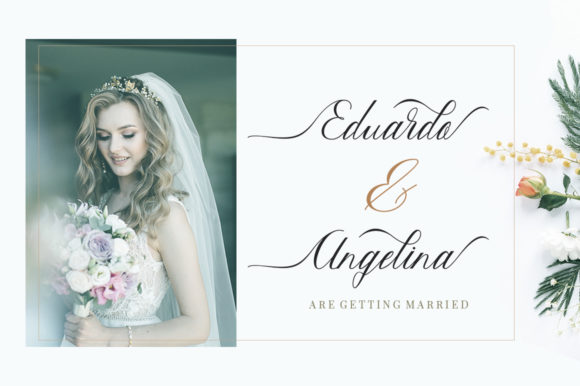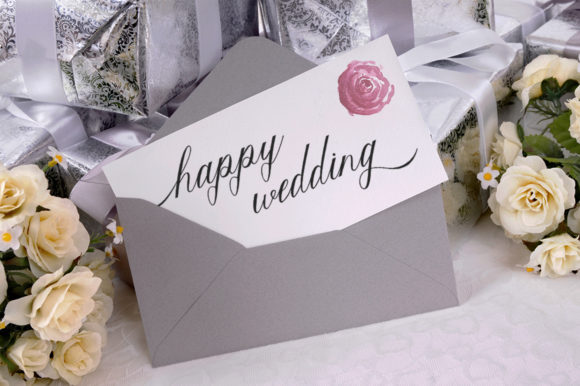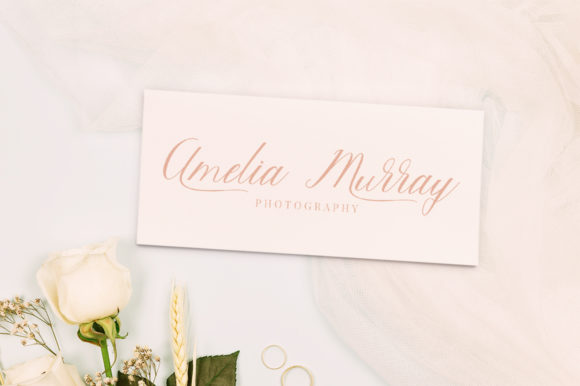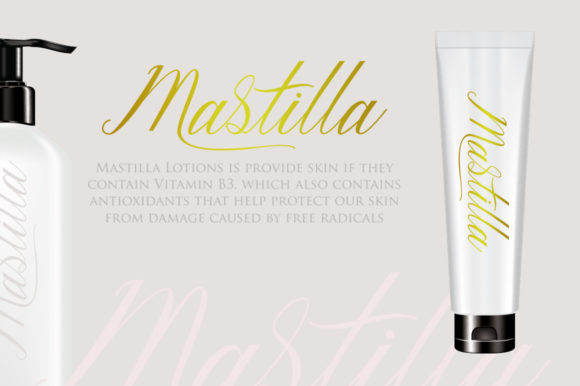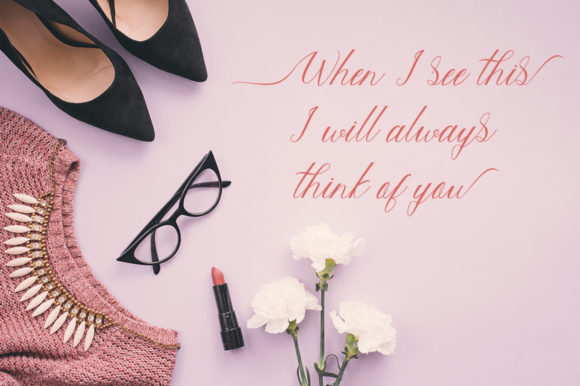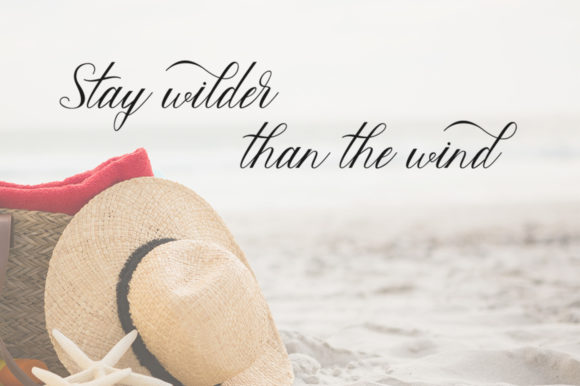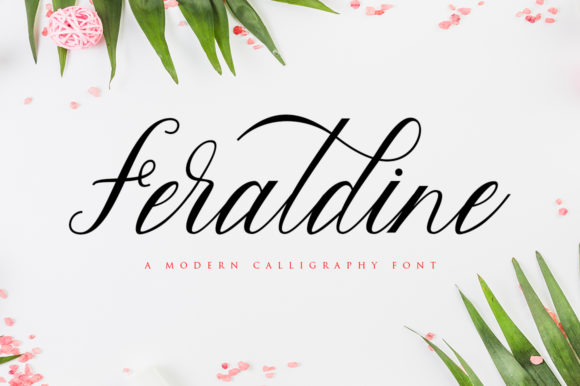
Feraldine Font: The Perfect Cute Calligraphy Font for Creative Projects
Are you a designer or crafter looking for a font that can add a touch of elegance and whimsy to your creative projects? Look no further than Feraldine Font! This beautiful calligraphy font is perfect for a variety of projects, from wedding invitations and party decor to branding and packaging.
What is Feraldine Font?
Feraldine is a cute calligraphy font with pretty flourishes that will add a touch of sophistication and charm to any project. The font features delicate lines, intricate swashes, and beautiful letterforms that are sure to impress. Whether you’re looking to create a romantic and whimsical design or a modern and elegant one, Feraldine Font is the perfect choice.
Key Features of Feraldine Font
- Cute and Whimsical: Feraldine Font features a playful and charming design that is perfect for creative projects that require a touch of personality.
- Beautiful Flourishes: The font includes intricate swashes and flourishes that add a touch of elegance and sophistication to any design.
- Easy to Read: Despite its decorative nature, Feraldine Font is easy to read and can be used for both headings and body text.
- Versatile: Feraldine Font can be used for a wide range of creative projects, from wedding invitations and party decor to branding and packaging.
Uses for Feraldine Font
Feraldine Font is perfect for a variety of creative projects, including:
- Wedding Invitations: Add a touch of romance and elegance to your wedding invitations with Feraldine Font.
- Party Decor: Use Feraldine Font to create beautiful party decorations, such as banners, garlands, and more.
- Branding and Packaging: Feraldine Font is perfect for branding and packaging projects that require a touch of elegance and sophistication.
- Stationery: Use Feraldine Font to create beautiful stationery, such as notebooks, journals, and more.
Tips for Using Feraldine Font
Here are a few tips for using Feraldine Font in your creative projects:
- Use it sparingly: Feraldine Font is a decorative font, so it’s best to use it sparingly to avoid overwhelming your design.
- Pair it with a simple font: Pair Feraldine Font with a simple font to create a beautiful contrast and add visual interest to your design.
- Experiment with colors: Feraldine Font looks beautiful in a variety of colors, so don’t be afraid to experiment and find the perfect hue for your design.
Feraldine Font is a beautiful and versatile calligraphy font that is perfect for a wide range of creative projects. With its cute and whimsical design, beautiful flourishes, and easy-to-read letterforms, Feraldine Font is sure to add a touch of elegance and sophistication to any design. Whether you’re a designer or crafter, Feraldine Font is a must-have font that is sure to inspire your creativity and take your projects to the next level.